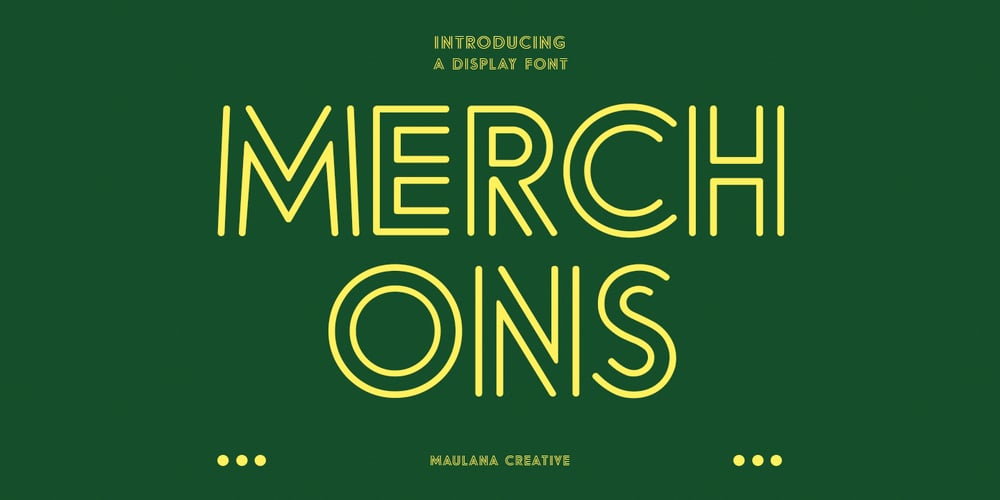
Merchons
Merchons font
Merchons Font Family was designed by Gilang Maulana and published by Maulana Creative. Merchons contains 1 styles and family package options. Merchons is a fancy line style Display sans serif font. With two line soft stroke, fun character with a bit of ligatures and alternates. To give you an extra creative work. Merchons font support multilingual more than 100+ language. This font is good for logo design, Social media, Movie Titles, Books Titles, a short text even a long text letter and good for your secondary text font with sans or serif. Make a stunning work with Merchons font. Cheers, Maulana Creative